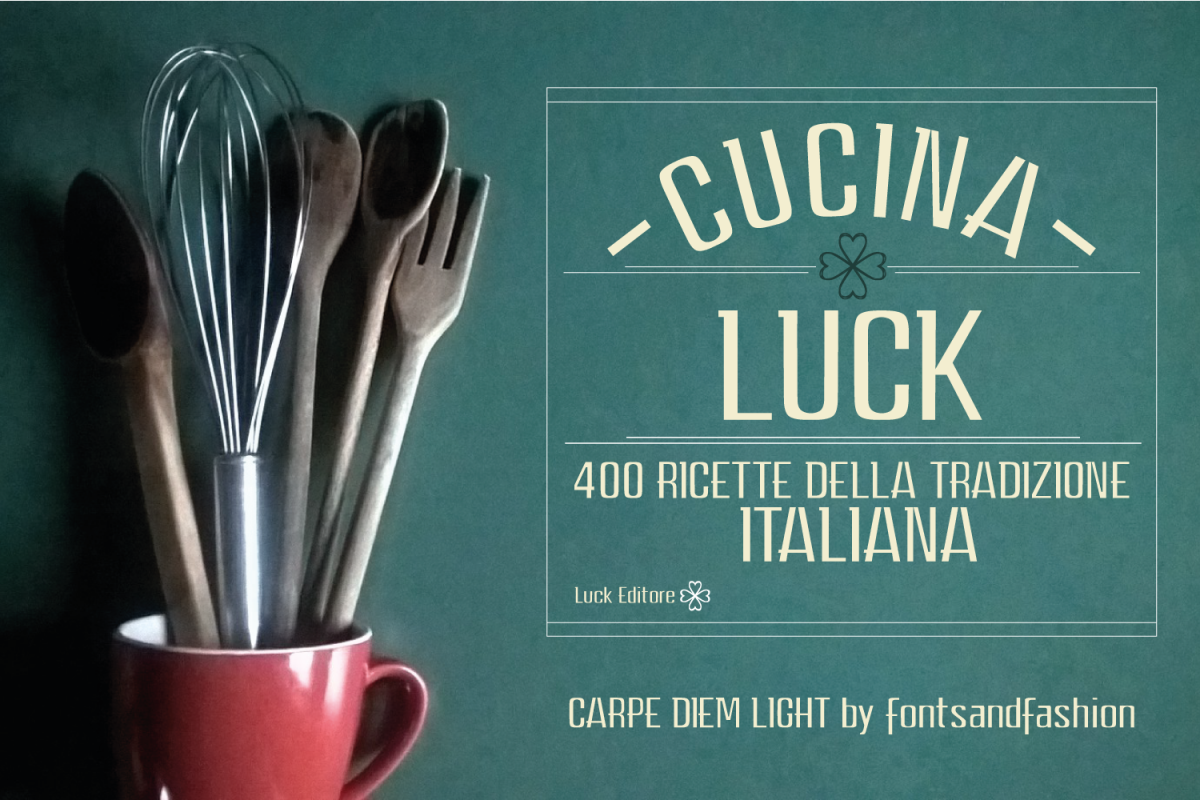
CARPE DIEM LIGHT
Carpe Diem it's a clear and modern Sans Serif with a geometric skeleton. This kind of fonts was born in England during 1800s for the purpose of making letters simple and with less frills. Definitely has a contemporary, familiar and 'perceptible' look. You can use it to emphasise text, thanks to generous thickness of lines that gives lettering more weight. Perfect for graphic design applications, starting from editing to company planning going to web graphic and interaction design. Great to use in titles, where is pursued more and more frequently something giving idea of unicity.
CARPE DIEM LIGHT